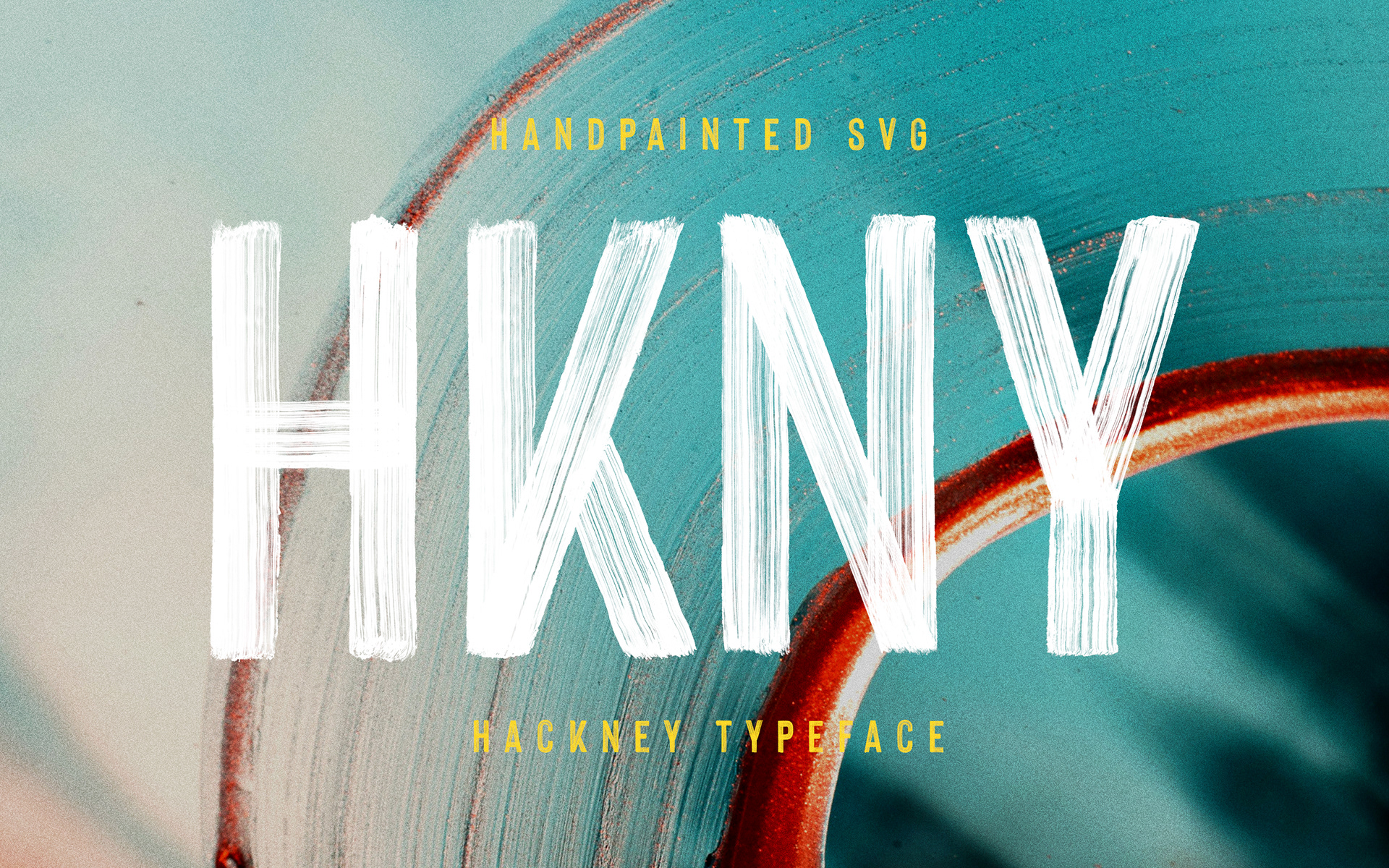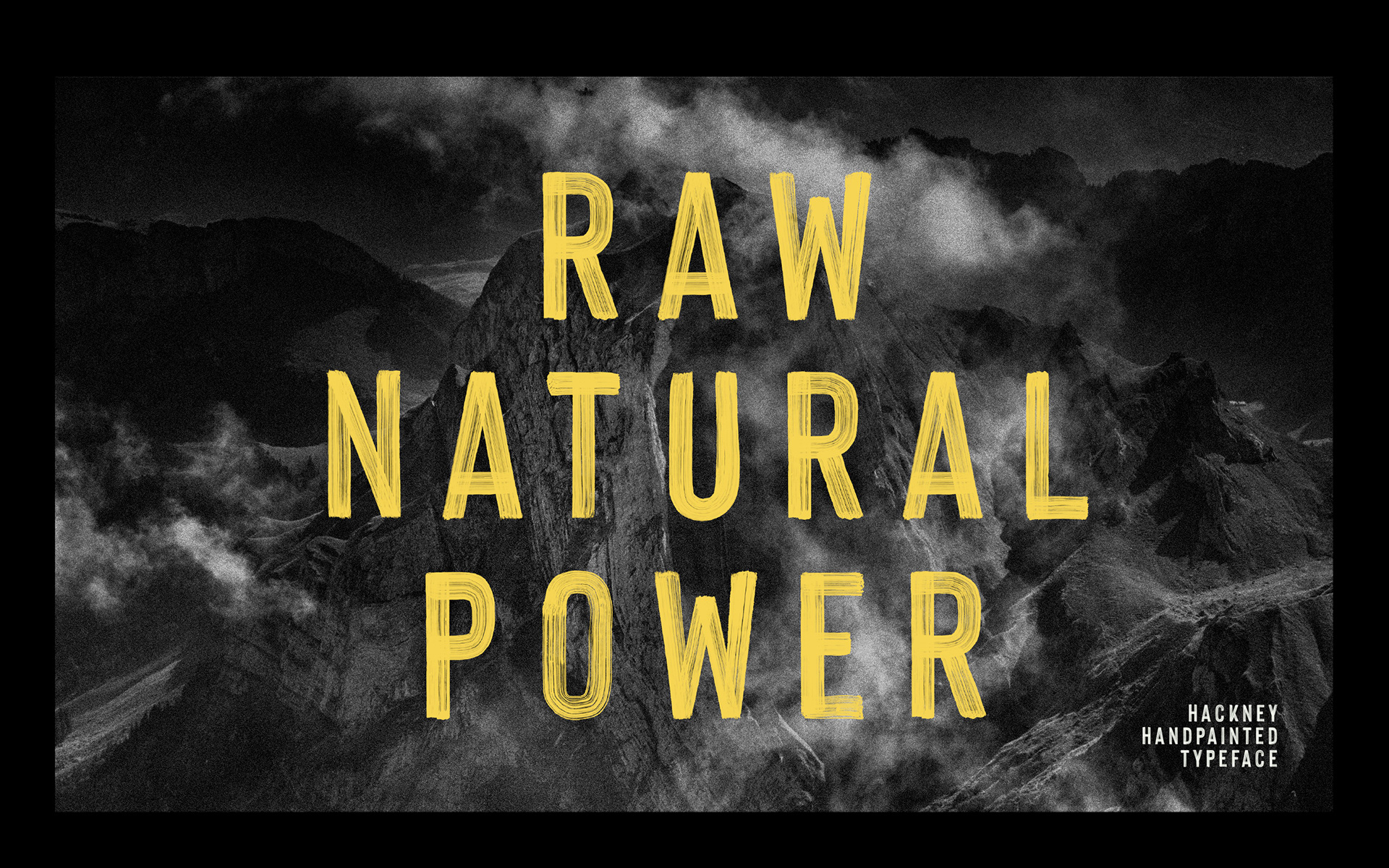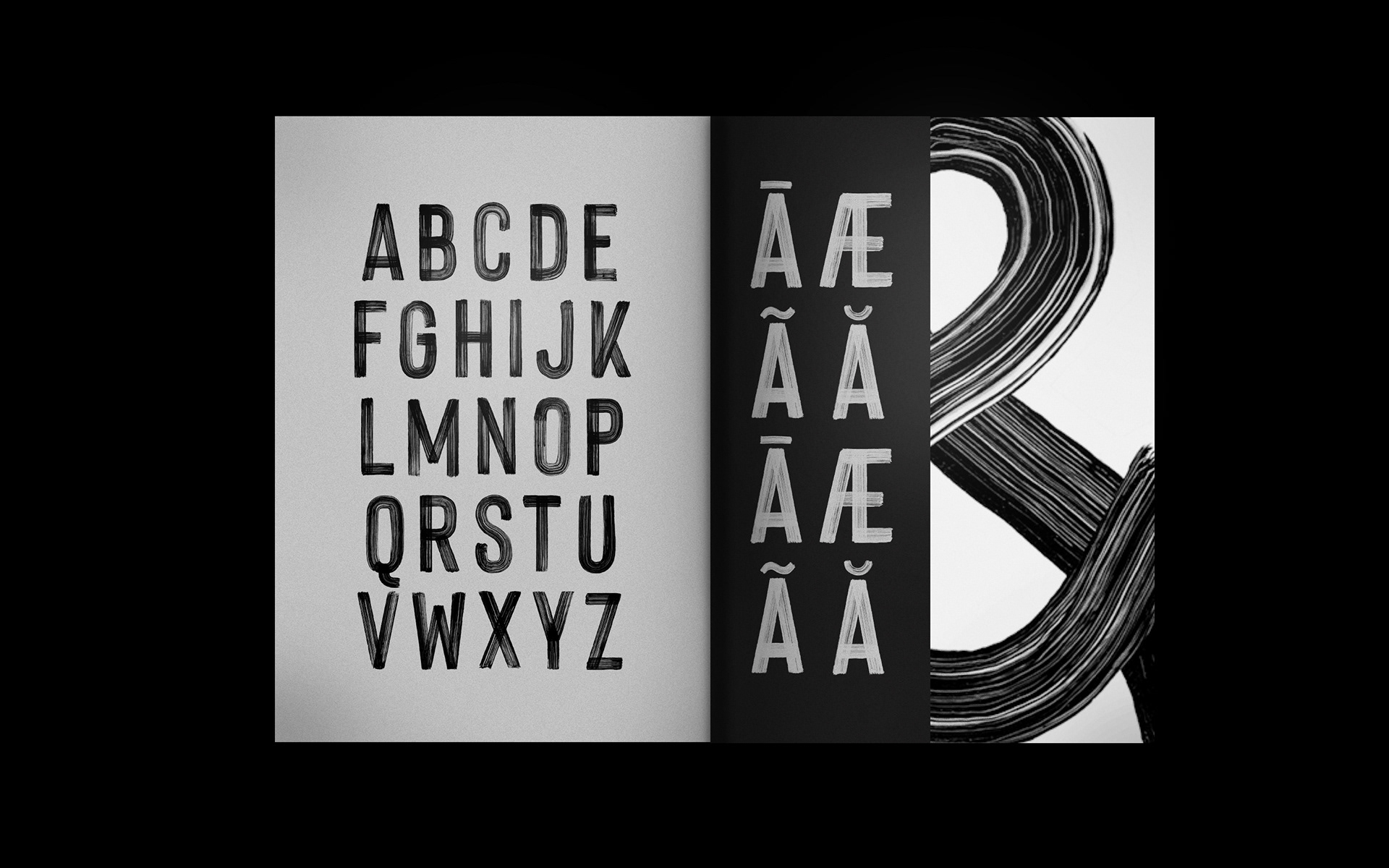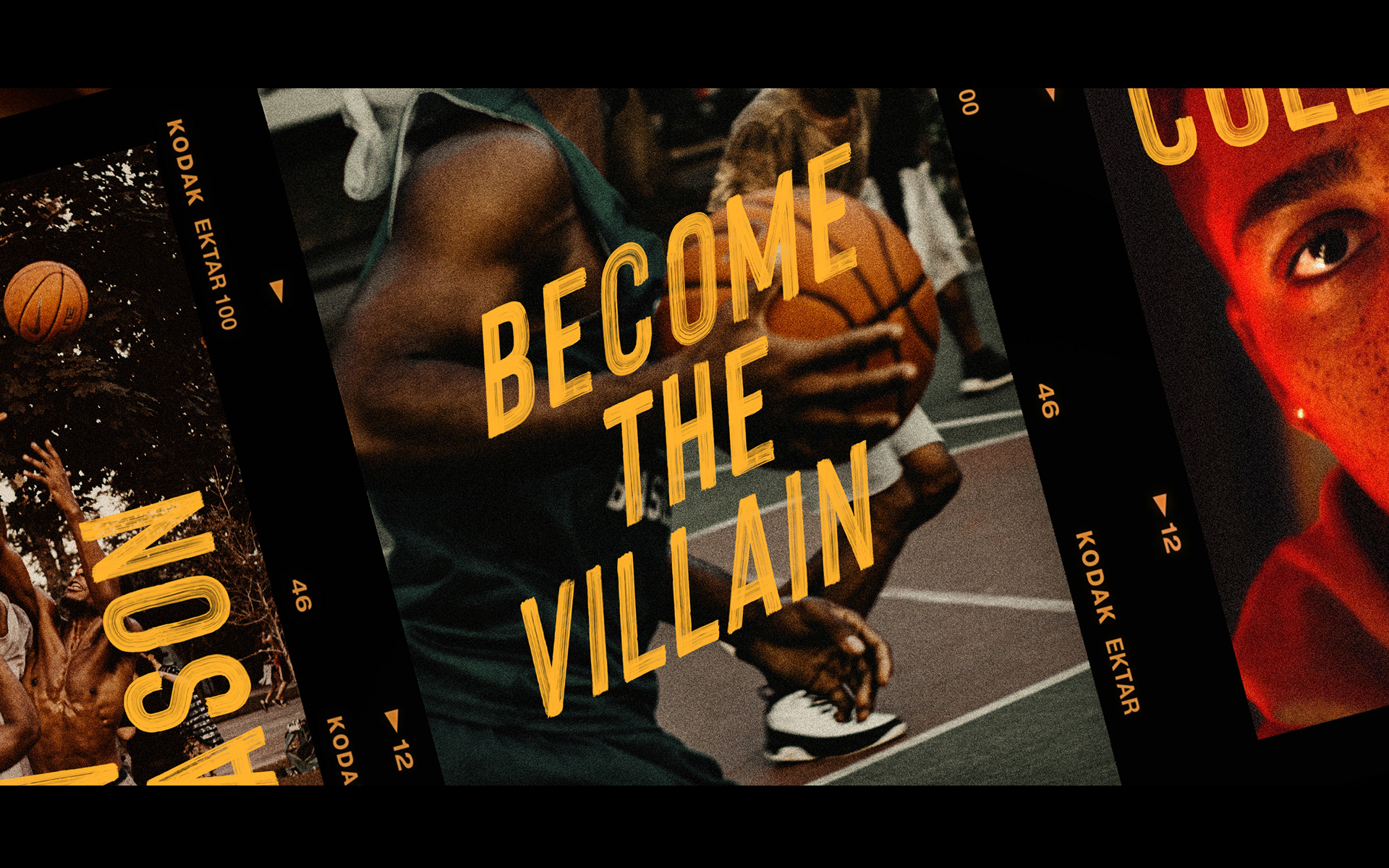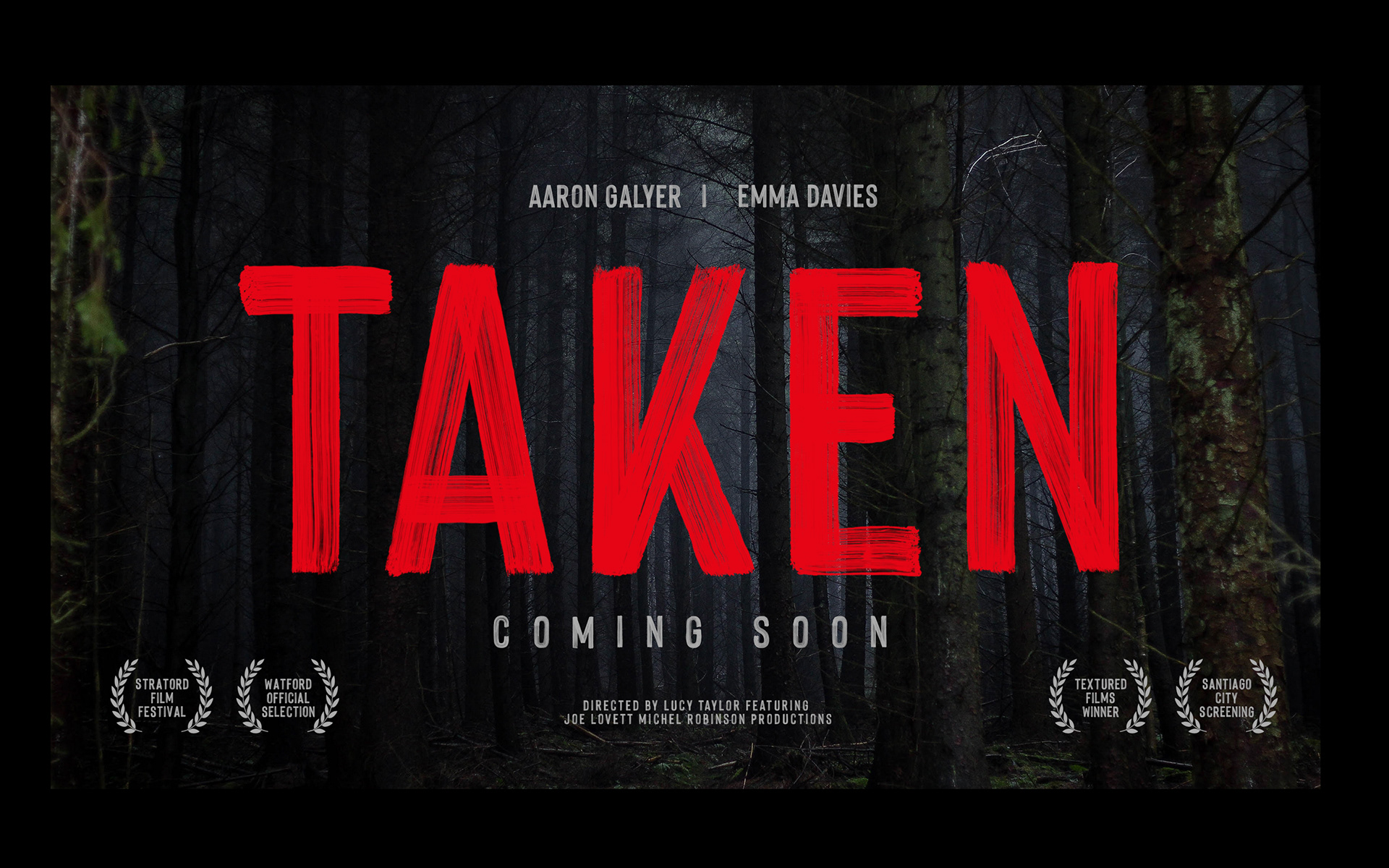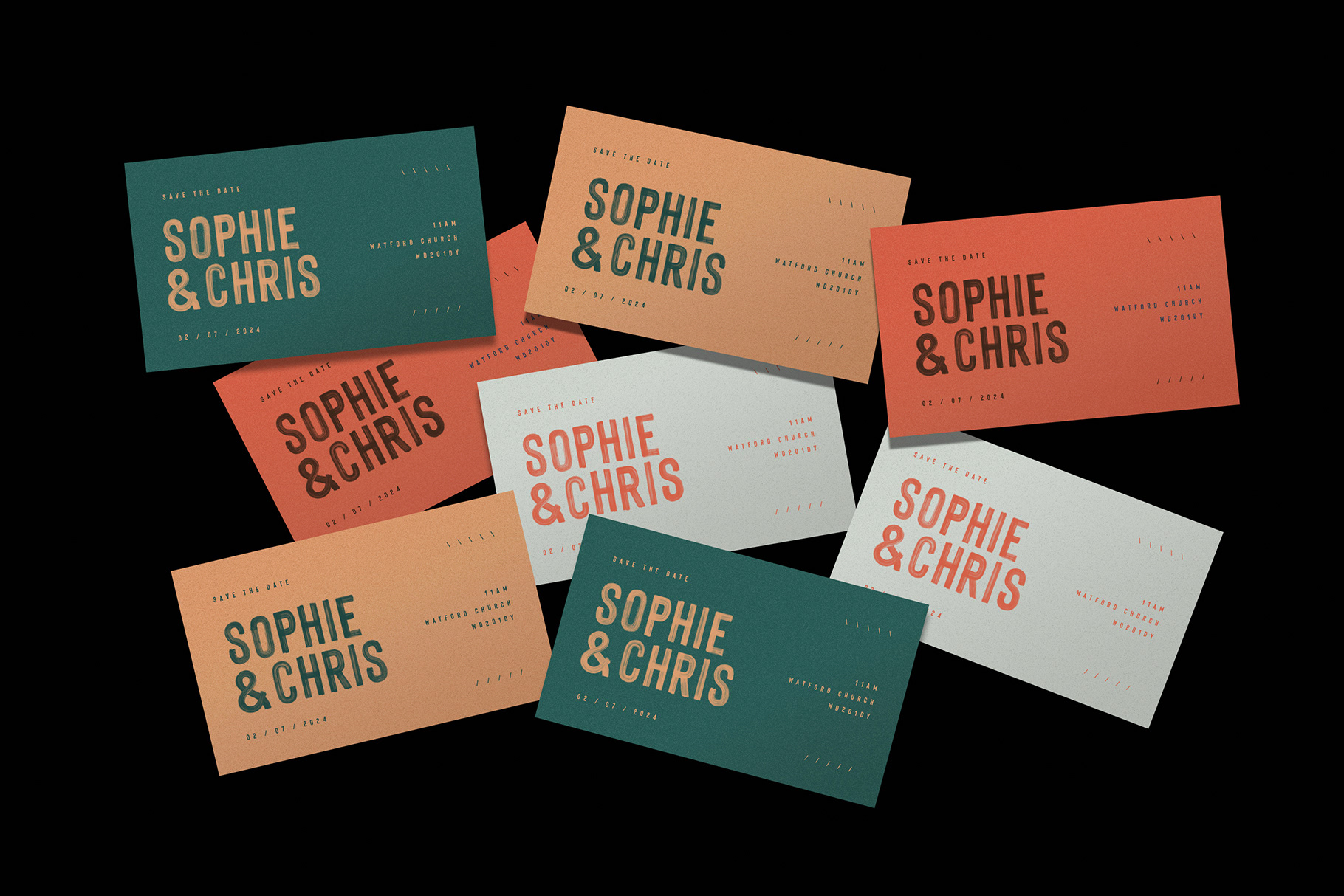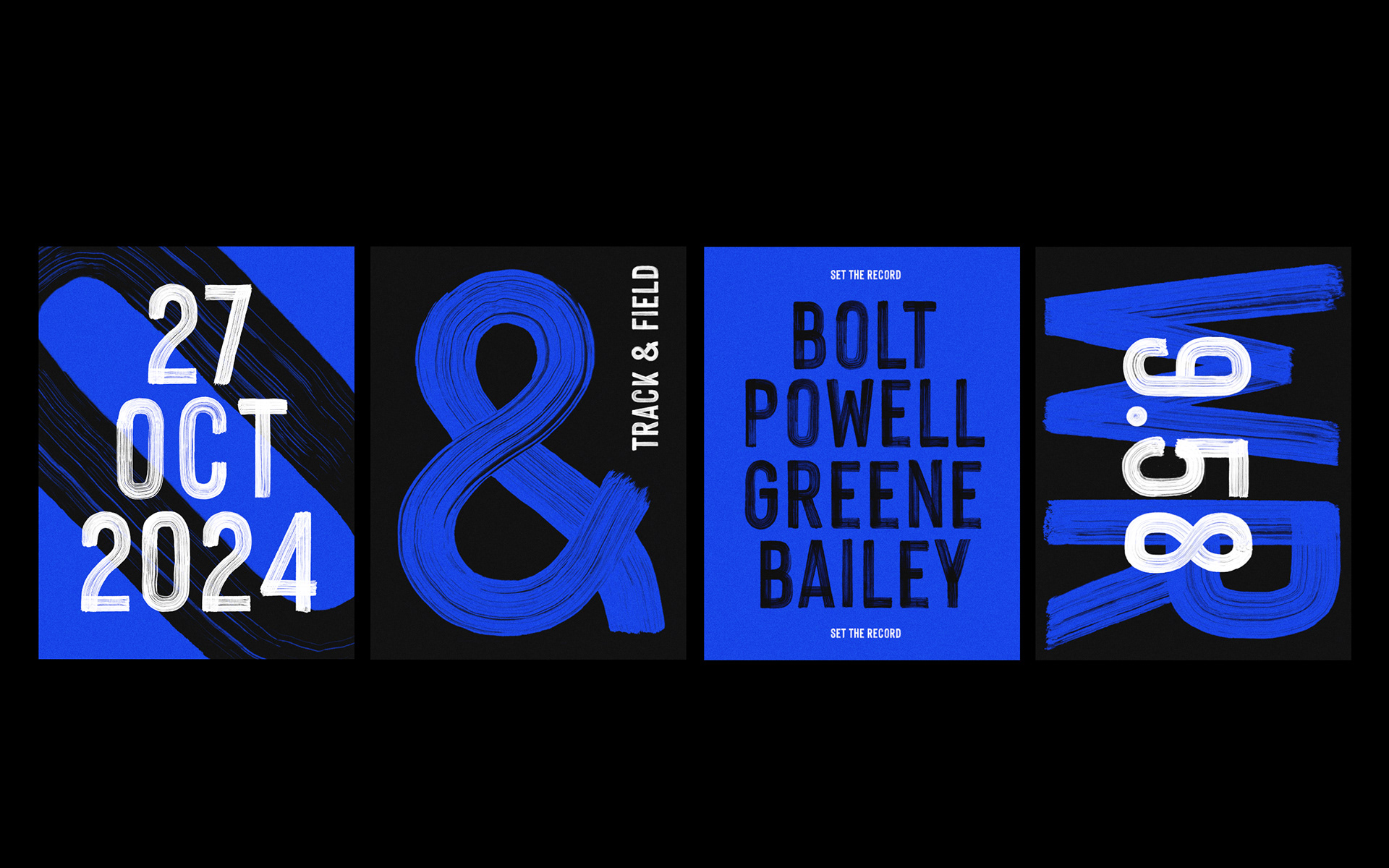
Hackney is entirely hand-painted sans serif. A raw, bold, condensed font, with brushy imperfections and an earthy realism. Hackney SVG keeps all the incredible definition of the real painted strokes as a transparent texture, so it gives you a proper hand-painted effect, without you having to do anything (or go near paint).